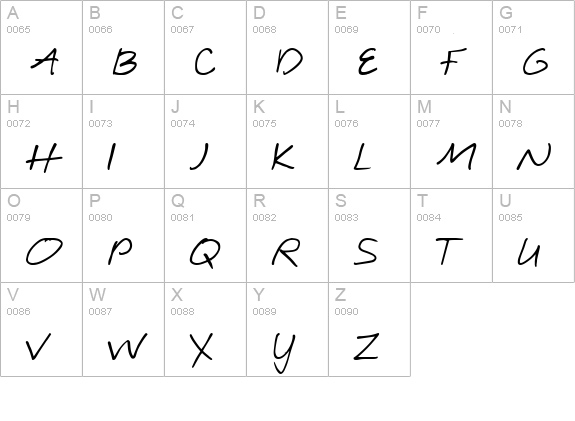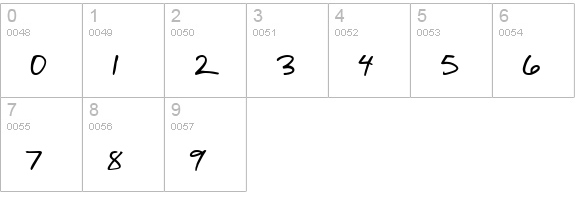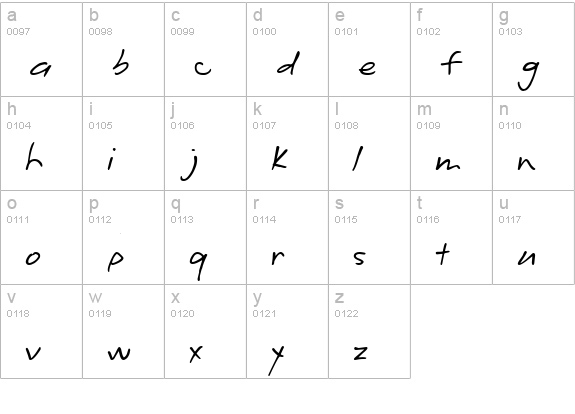
CK Quick Font Details
Introducing CK Quick font, a versatile and modern typeface that effortlessly blends elegance with a touch of playfulness. This unique font features clean lines and a sleek design, making it perfect for a wide range of projects, from branding to web design. CK Quick font is available for free download at FontsMarket.com, making it easily accessible for designers and creatives looking to add a fresh and contemporary twist to their work. Whether you're working on a logo, poster, or website, CK Quick font offers a stylish and eye-catching option that will help your designs stand out from the crowd. With its bold yet refined aesthetic, CK Quick font is sure to make a statement in any project. Don't miss out on this fantastic font - download CK Quick today and elevate your design work to the next level!